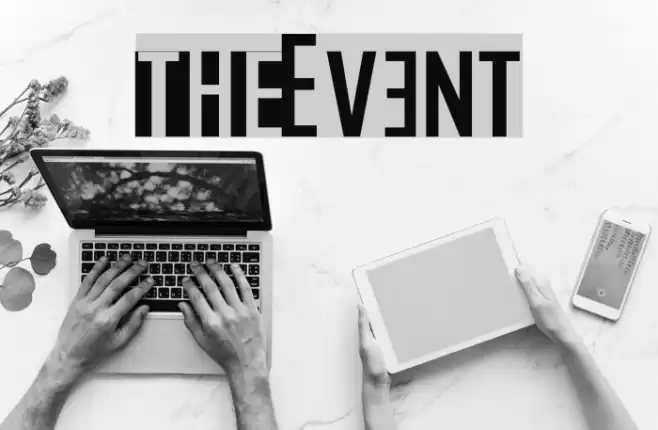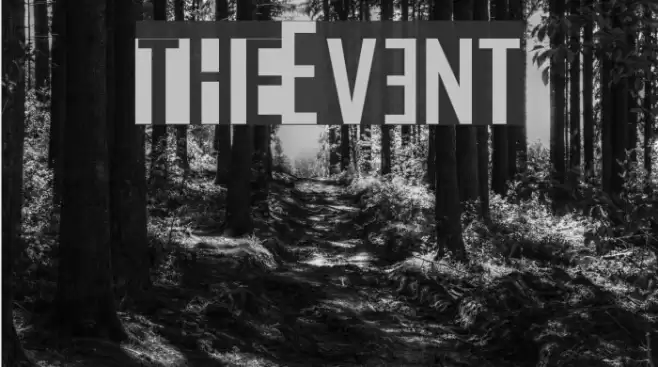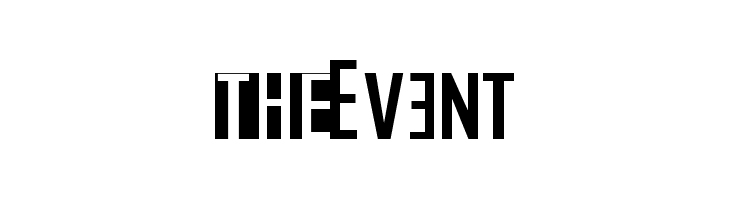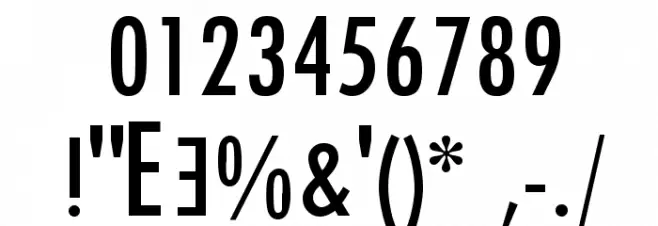
the#V$NT Font
the#V$NT Description
This font features a bold and impactful design with strong vertical lines and minimal contrast between thick and thin strokes. The uppercase letters are tall and commanding, making a strong visual statement. The lowercase letters maintain the same boldness, ensuring consistency across text. The numerals are clear and legible, designed to stand out in any context. Special characters are crafted with the same bold style, ensuring they integrate seamlessly with the rest of the font. This typeface is ideal for making a statement in headlines or logos, where visibility and impact are crucial.
A bold, impactful font with strong vertical lines and minimal contrast from Sci-fi fonts.
- Font: the#V$NT
by spideraysfonts - Weight: Regular
- Proposed Projects: Ideal for headlines, posters, branding, and logo design where boldness is key.